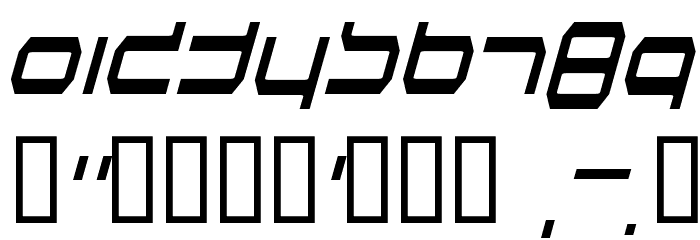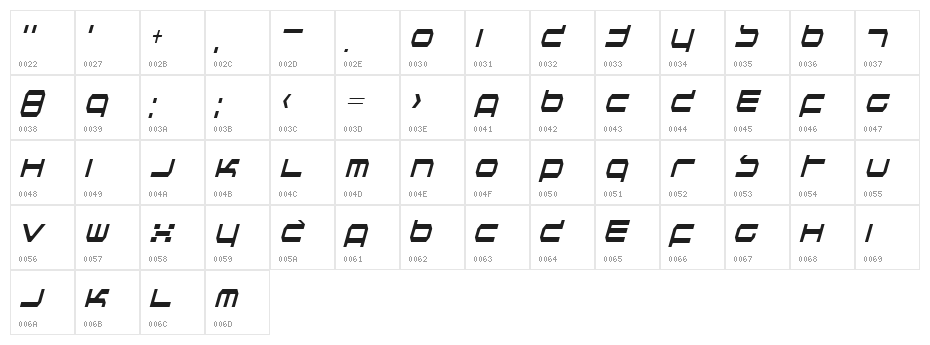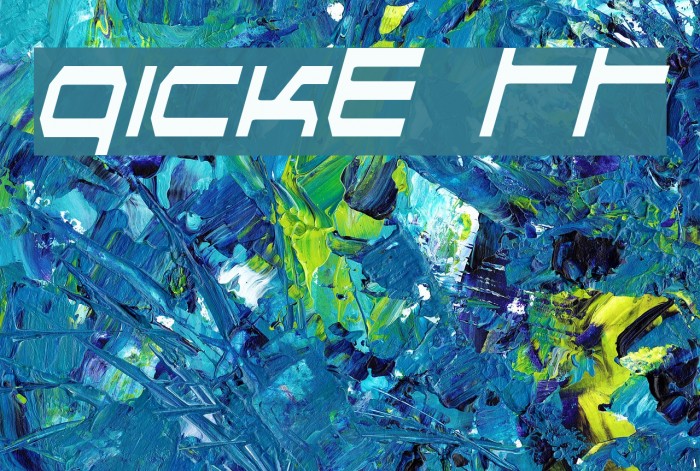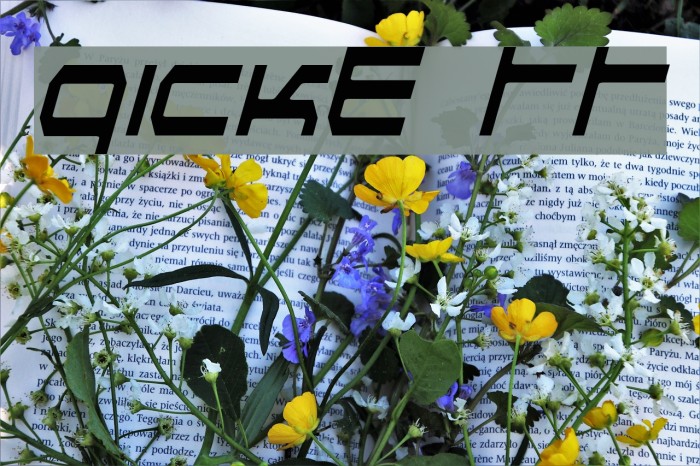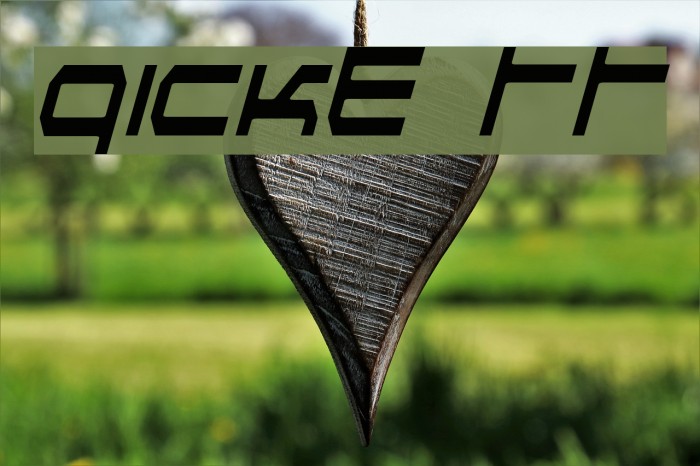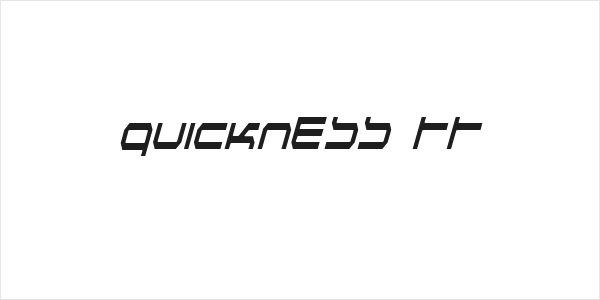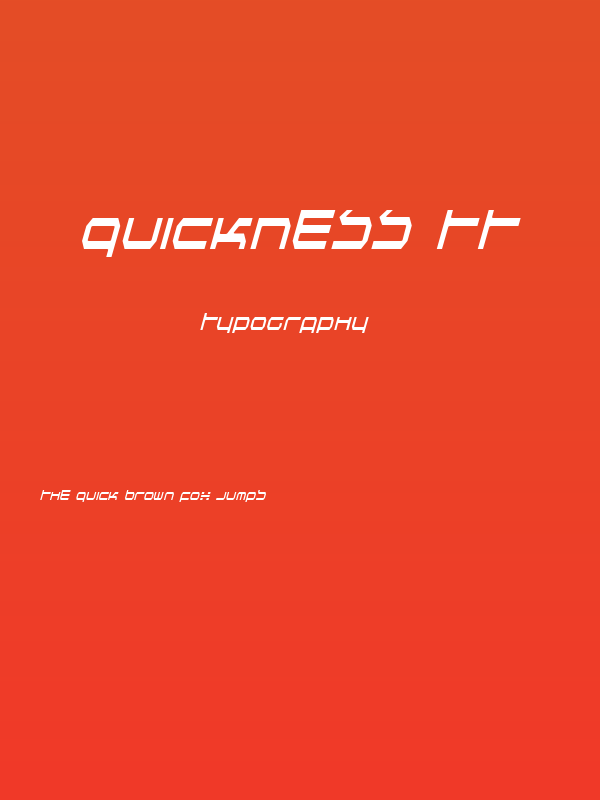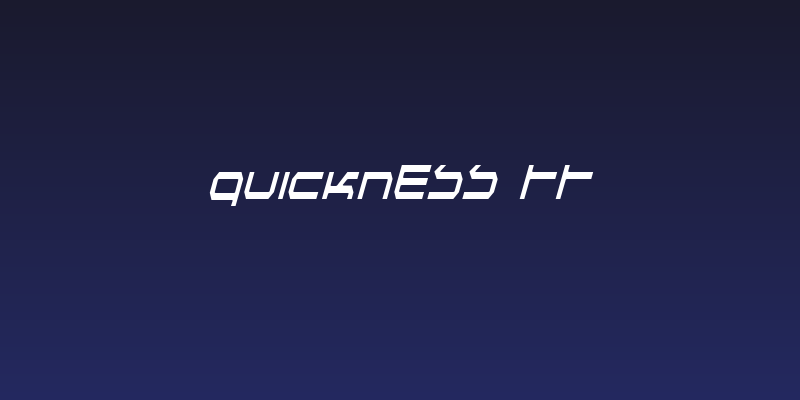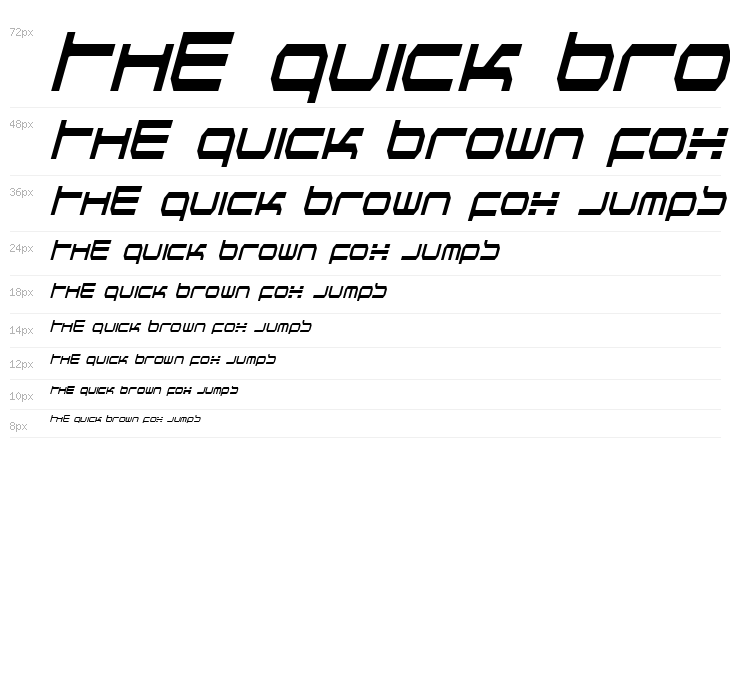
Quickness TT Font
Quickness TT Description
This font features a futuristic and angular design, characterized by sharp edges and a geometric structure. The letters are slightly slanted, giving a sense of motion and speed. The uppercase and lowercase letters maintain a consistent style, with a unique approach to curves and lines that create a dynamic appearance. The numbers and special characters follow the same design principles, ensuring uniformity across all glyphs. The overall look is modern and tech-inspired, suitable for projects that require a bold and innovative aesthetic.
| Proposed Projects | Ideal for technology branding, video game titles, sci-fi movie posters, and modern digital interfaces. |